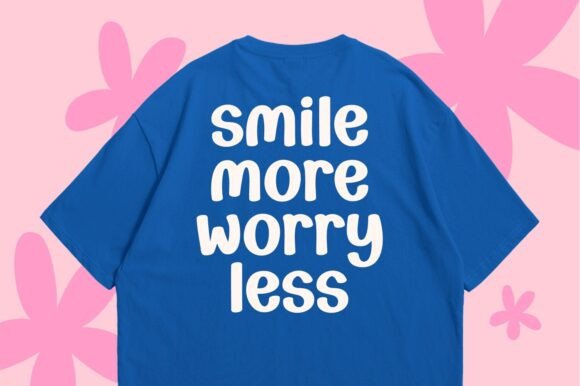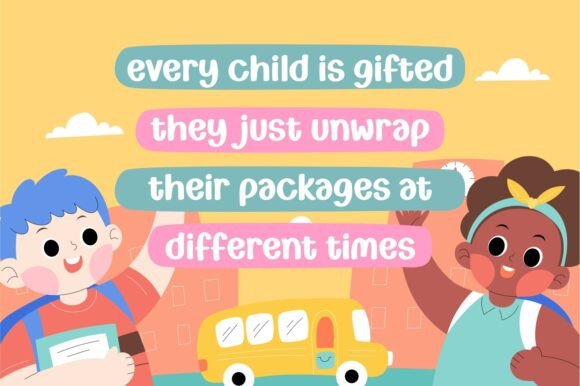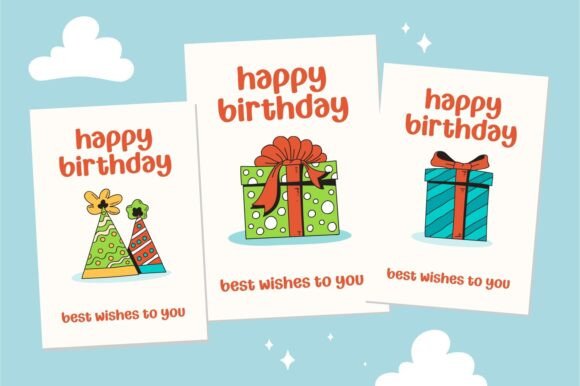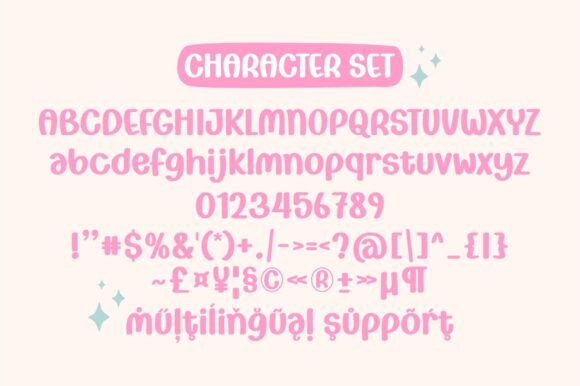
Introducing Blissful Teacher: The Perfect Handwritten Font for Joyful Designs
Are you tired of using the same old fonts for your designs? Do you want to add a touch of personality and whimsy to your projects? Look no further than Blissful Teacher, a delightful handwritten font that radiates joy, creativity, and warmth. With its playful curves and bubbly letters, this font is perfect for creating fun and approachable designs that are sure to bring a smile.
The Perfect Font for Educators and Designers
Blissful Teacher is an ideal choice for educators, designers, and crafters who want to create engaging and interactive materials. Whether you’re crafting posters for the classroom, designing educational materials, or working on a project that needs a touch of whimsy, this font is sure to add just the right amount of personality. Its friendly vibe makes it easy on the eyes, and its versatility ensures that it can be used for a wide range of projects.
Key Features of Blissful Teacher
So, what makes Blissful Teacher so special? Here are just a few of its key features:
- Playful curves and bubbly letters: Blissful Teacher’s unique letterforms are designed to bring a sense of joy and playfulness to your designs.
- Multilingual support: With support for multiple languages, you can use Blissful Teacher to create designs that can be enjoyed by people all around the world.
- Handwritten style: Blissful Teacher’s handwritten style gives it a personal and approachable feel that’s perfect for creating designs that connect with your audience.
- Versatility: Whether you’re creating posters, flyers, or social media graphics, Blissful Teacher is the perfect font for any project that needs a touch of whimsy.
Why Choose Blissful Teacher?
So, why should you choose Blissful Teacher for your next project? Here are just a few reasons:
- Adds personality to your designs: Blissful Teacher’s unique style ensures that your designs stand out from the crowd and reflect your personality.
- Easy to read: Despite its playful style, Blissful Teacher is easy to read and understand, making it perfect for creating designs that need to communicate a message.
- Customizable: With Blissful Teacher, you can create custom designs that reflect your brand or personal style.
Using Blissful Teacher in Your Designs
- Pair it with other fonts: Blissful Teacher pairs well with other fonts, so feel free to experiment with different combinations to find the perfect look for your design.
- Use it for headings and titles: Blissful Teacher’s playful style makes it perfect for headings and titles, but you can also use it for body text for a more informal look.
- Experiment with colors: Blissful Teacher looks great in a variety of colors, so don’t be afraid to experiment and find the perfect color scheme for your design.
In conclusion, Blissful Teacher is a delightful handwritten font that’s perfect for creating joyful designs that bring a smile. With its playful curves, bubbly letters, and friendly vibe, this font is sure to add just the right amount of personality to your projects. Whether you’re an educator, designer, or crafter, Blissful Teacher is a great choice for any project that needs a touch of whimsy. So why wait? Download Blissful Teacher today and start creating designs that bring joy to others!